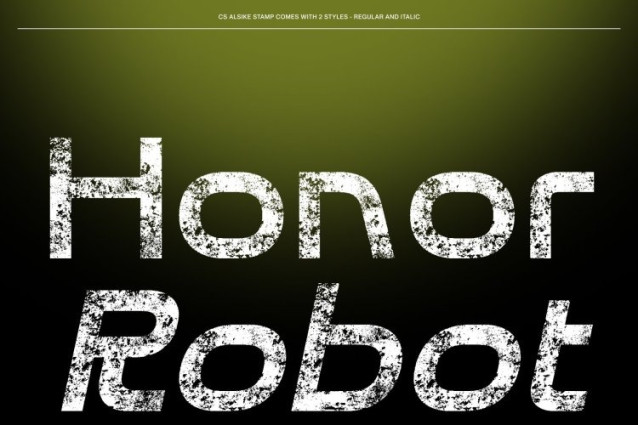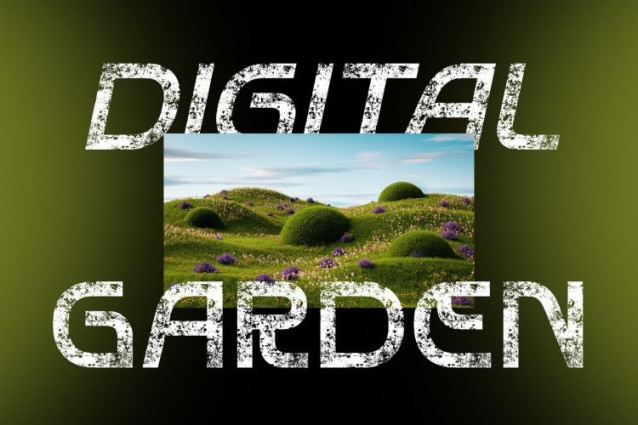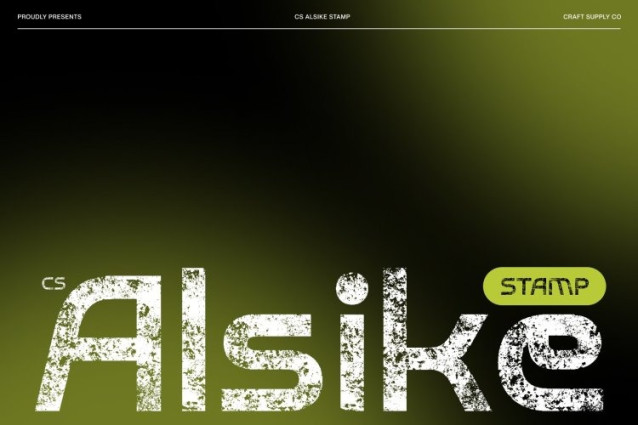
CS Alsike Stamp Font
CS Alsike Stamp Font This is a modern display sans-serif font that blends sharp geometric construction with a distinctive stamped texture. Its clean lines and angular forms create a sleek, futuristic foundation, while the stamp effect introduces subtle wear and irregularity adding depth, character, and a tactile visual feel.
Tech-Inspired Precision Meets Vintage Texture
Built from crisp angles and structured letterforms, this font delivers a strong tech-inspired aesthetic rooted in clarity and precision. The stamped finish softens its digital sharpness with an artistic, slightly distressed texture, creating a compelling balance between high-tech modernism and old-world industrial charm. The result is a typeface that feels both cutting-edge and uniquely expressive.
Forward-Thinking Design with Visual Impact
The geometric forms ensure excellent readability, while the stamped texture adds personality and visual rhythm. This contrast makes the font stand out in display use clean enough for modern applications, yet textured enough to feel bold, human, and distinctive. Every letter carries a sense of innovation enhanced by character and depth.
Perfect for Digital, Tech, and Experimental Branding
This font ideal for tech branding, futuristic posters, digital interfaces, UI elements, and experimental visual identities. Its combination of modern structure and stamped texture makes it perfect for projects that want to feel advanced, confident, and visually memorable where futuristic design meets raw, artistic character.